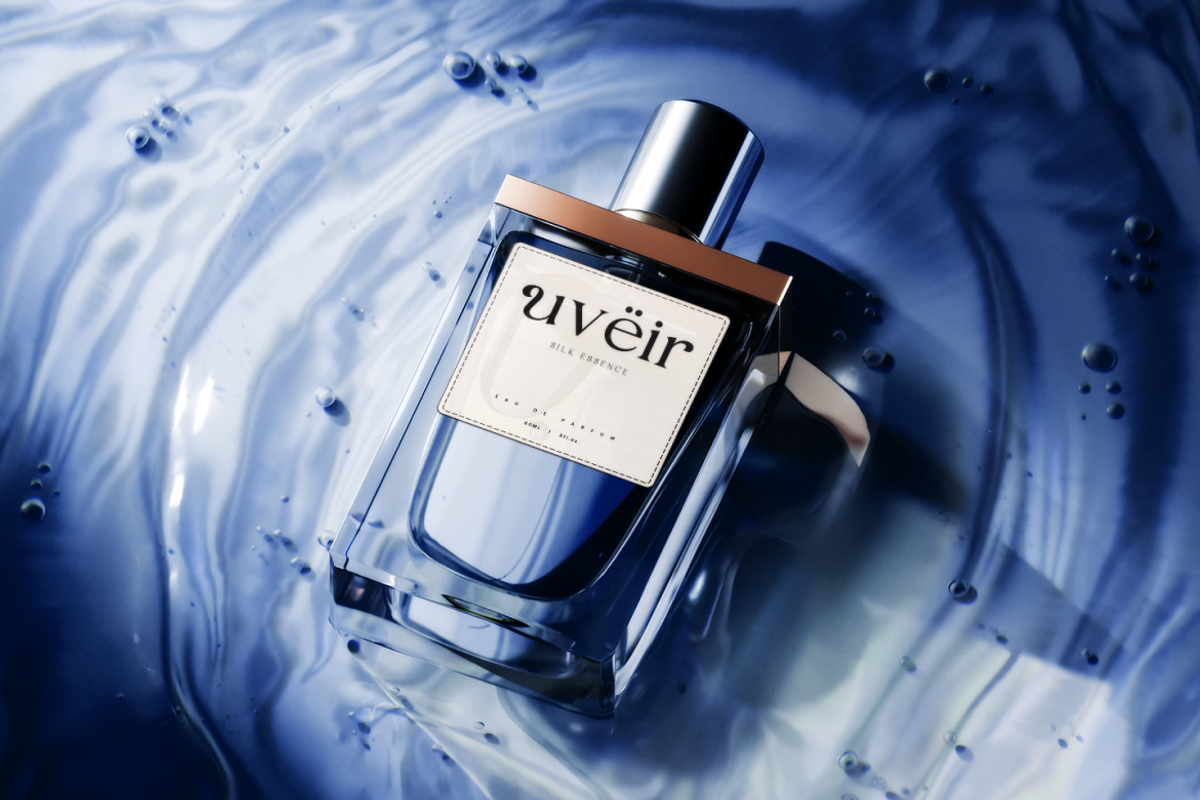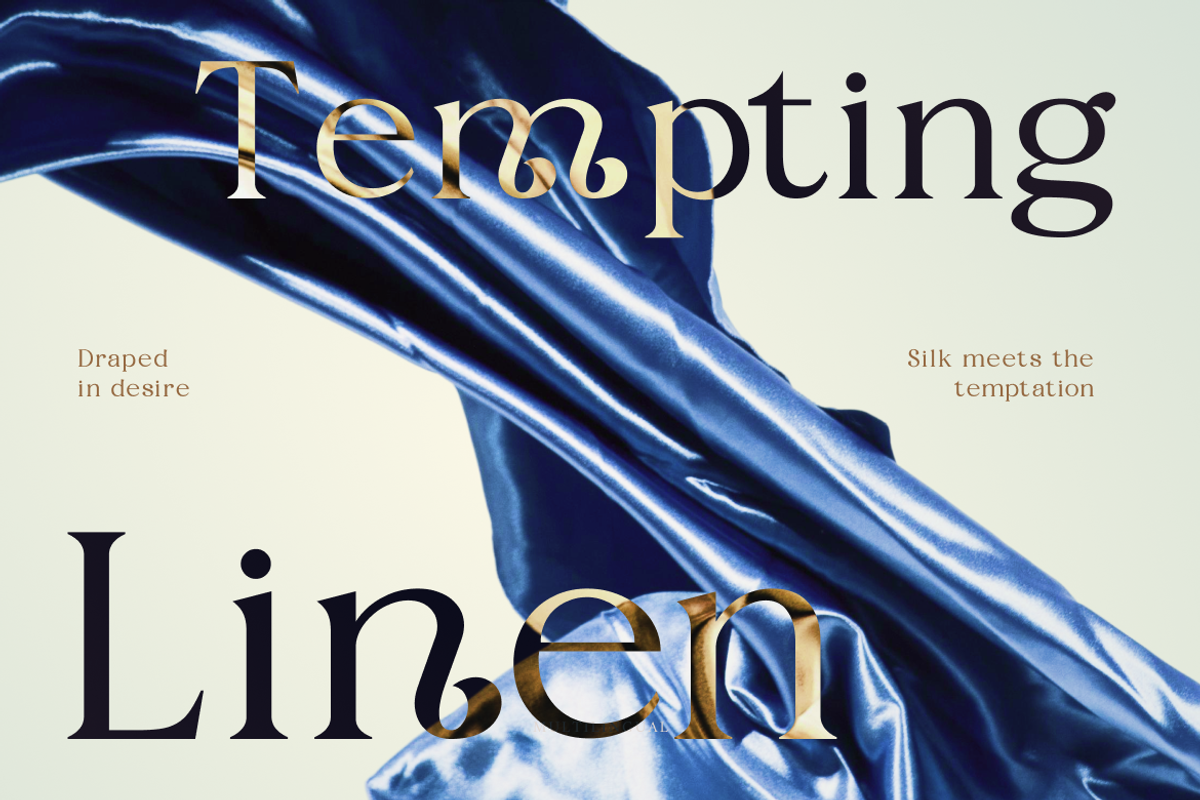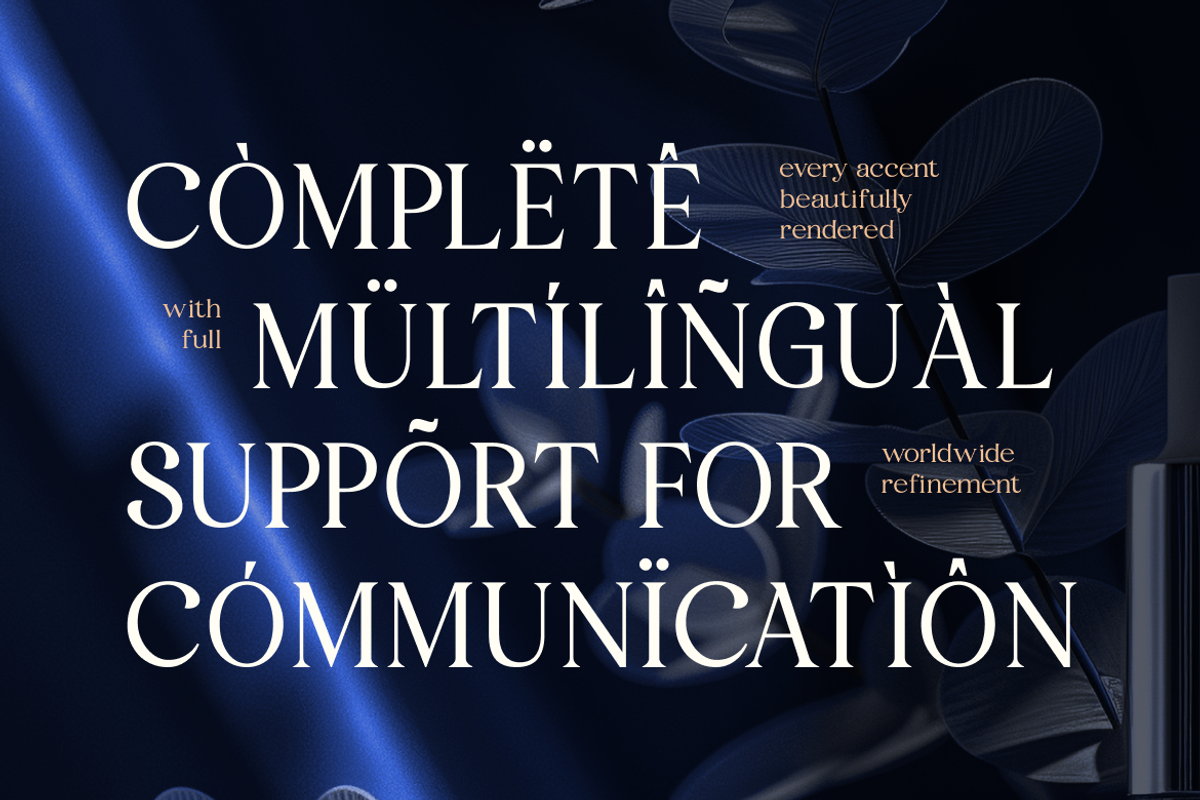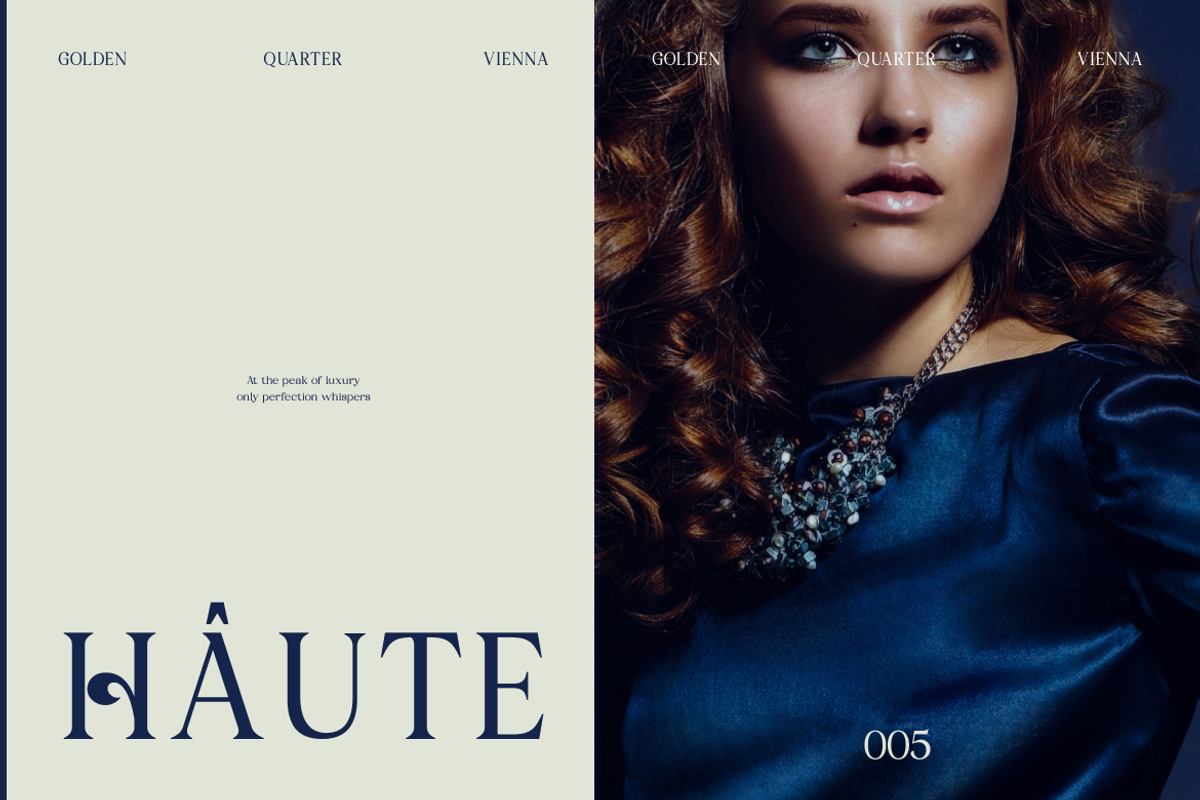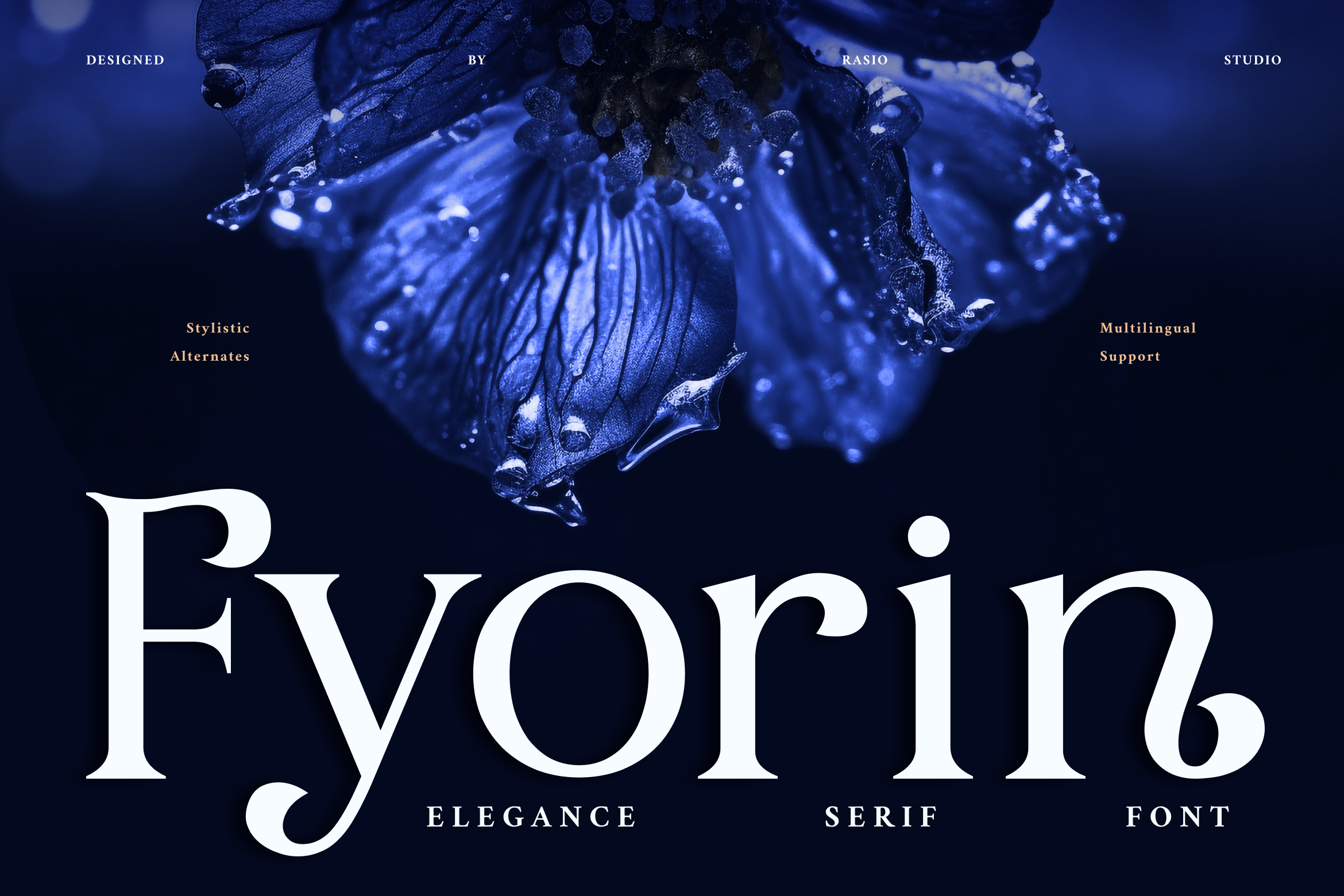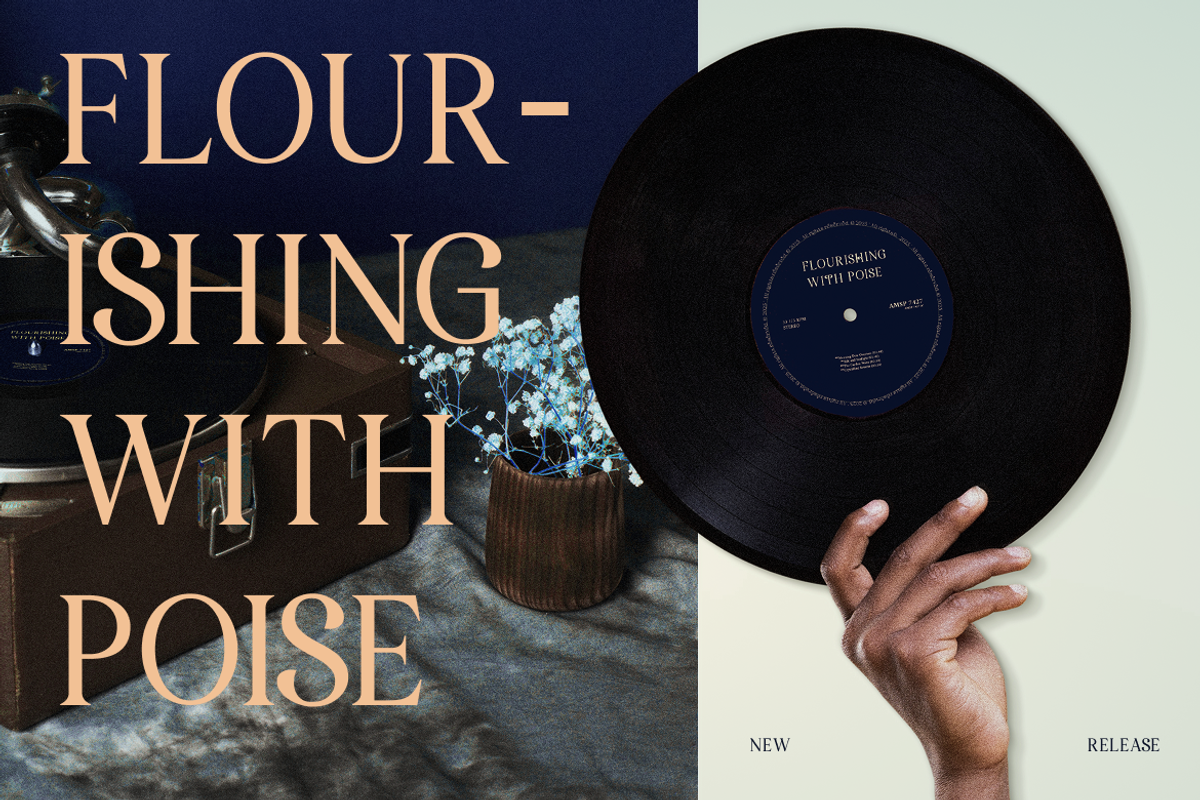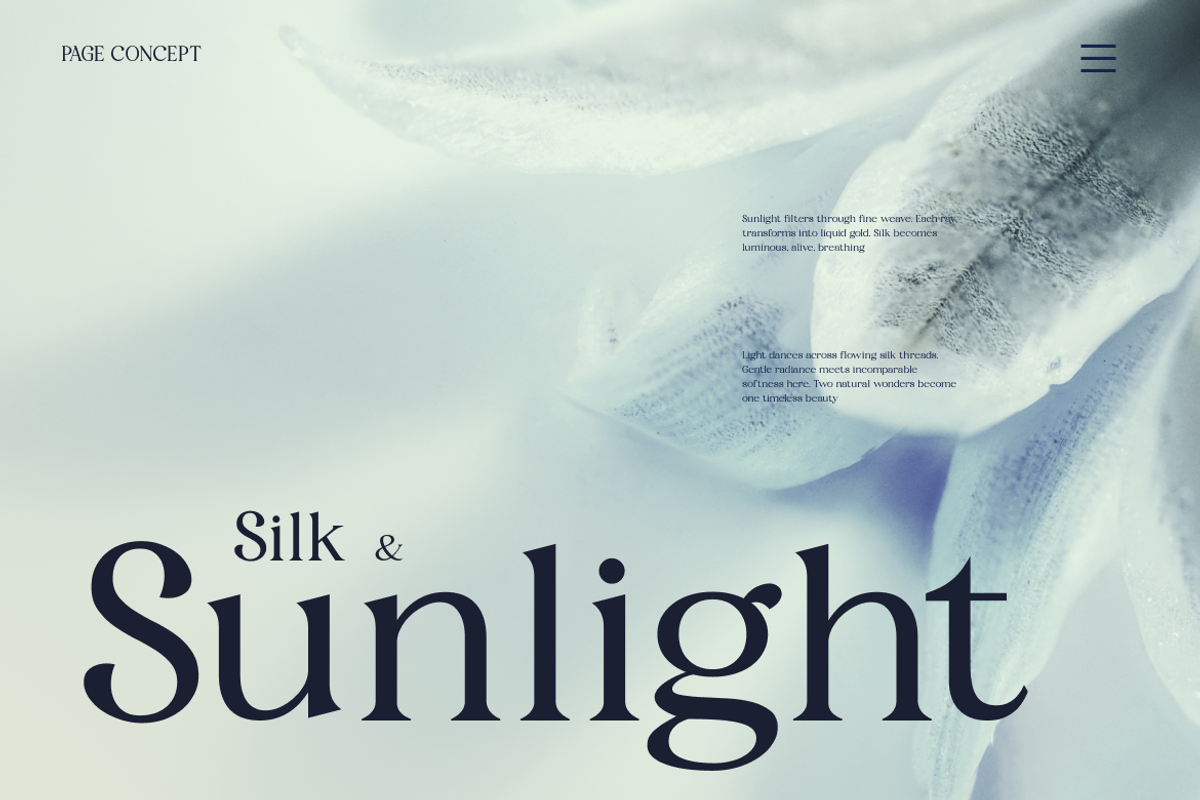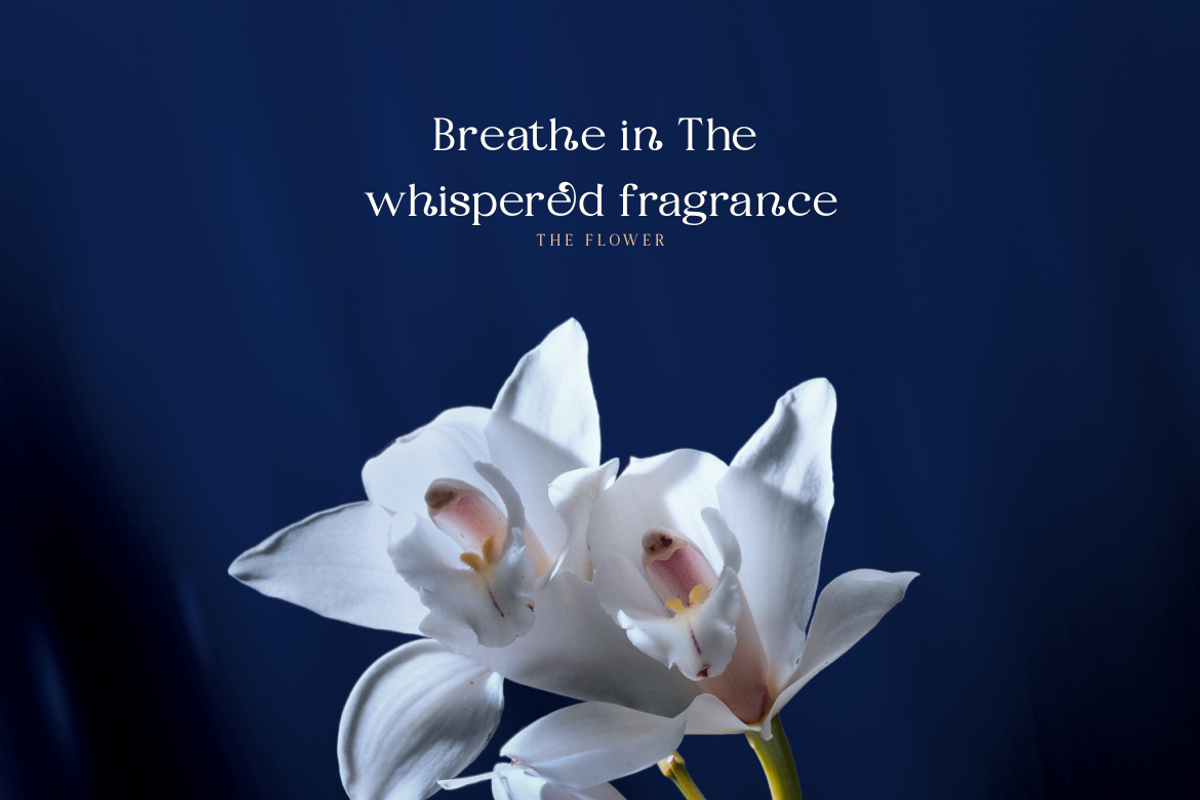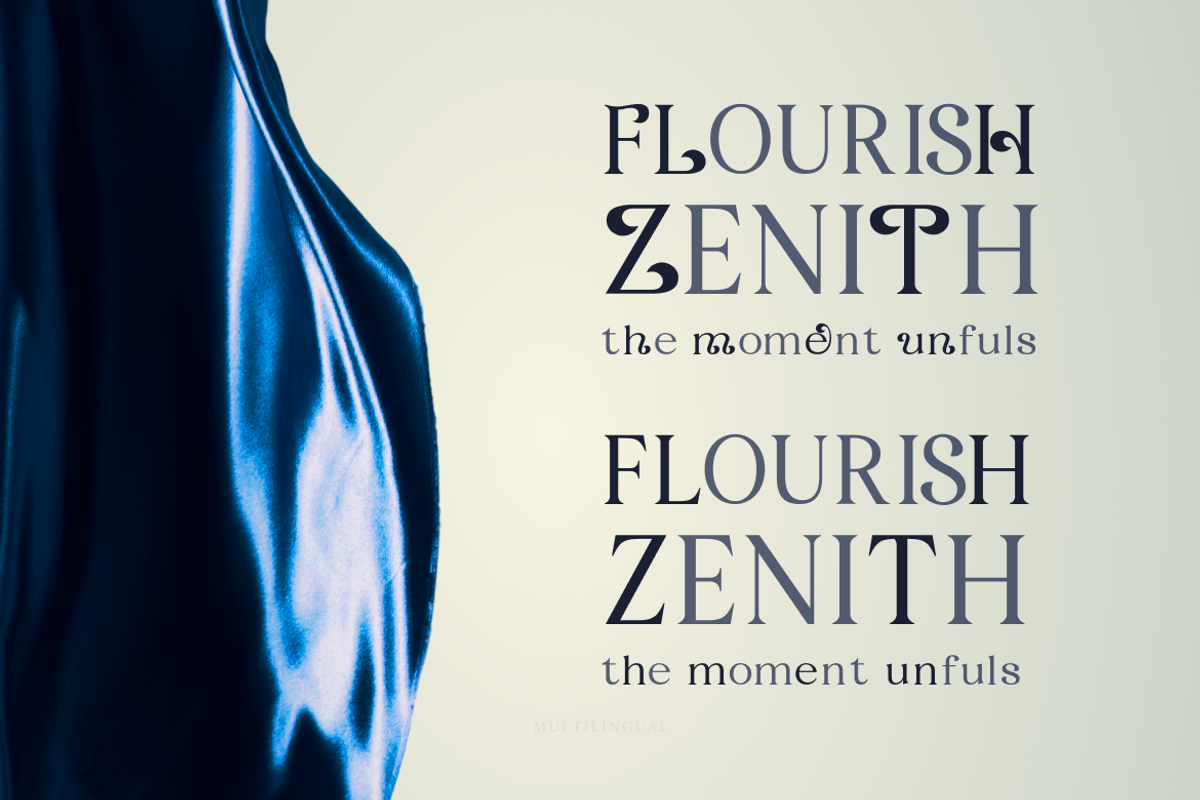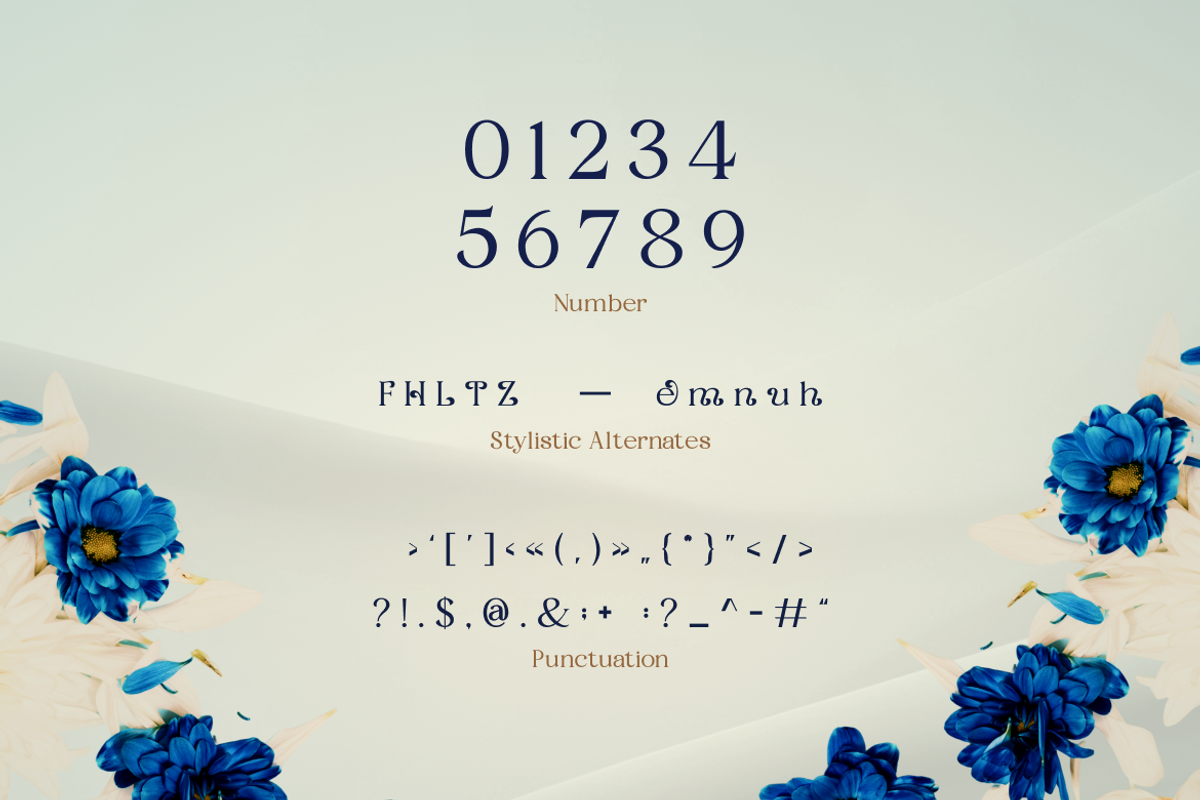
Fyorin Elegance Serif Font
Fyorin is a refined modern serif typeface crafted for elegant and sophisticated visual identities. Inspired by timeless editorial typography, it features high-contrast strokes, graceful curves, and sharp yet delicate serifs that convey luxury and confidence. The font includes uppercase, lowercase, numbers, punctuation, and beautifully designed diacritics with full multilingual support.
Fyorin is designed for high-end branding and refined visual communication. It works beautifully for fashion labels, luxury product packaging, editorial magazines, wedding invitations, beauty branding, and premium social media campaigns. ts multilingual support makes it suitable for global brands seeking elegance and consistency across international markets.
- High-contrast serif construction with refined thick–thin transitions
- Sharp, sculpted serifs that enhance elegance and authority
- Graceful curves with precise detailing for sophisticated aesthetics
- Balanced classical proportions with modern refinement
- Carefully crafted diacritics for seamless multilingual support
- Luxury brand identity systems seeking timeless sophistication
- Editorial magazines, fashion spreads, and high-end lookbooks
- Wedding invitations and upscale event stationery
- Premium product packaging for beauty, fragrance, and jewelry
- Elegant logo design and refined typography for boutique businesses
- Social media visuals for luxury and lifestyle brands
Fyorin transforms typography into a statement of luxury